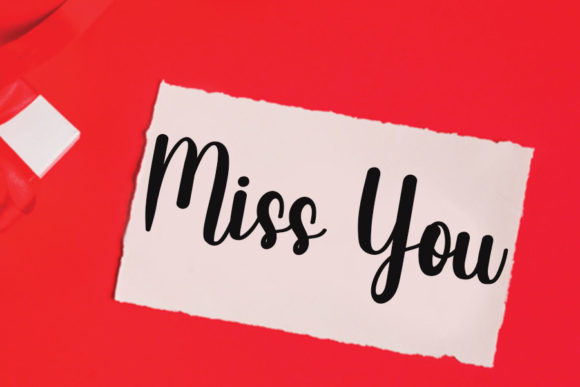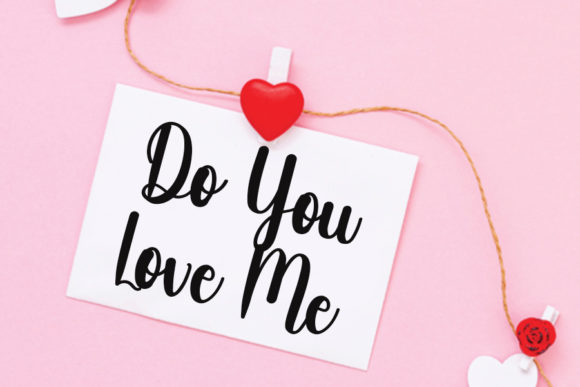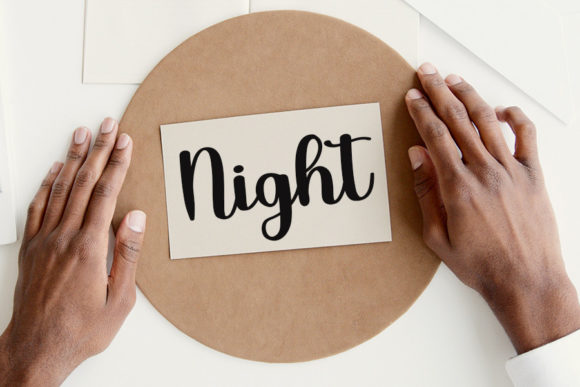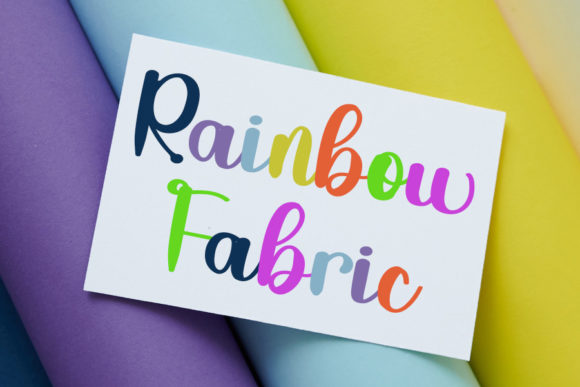
Discover the Beauty of Handwritten Fonts: A Designer’s Dream
Imagine strolling through a quaint, vintage bookstore, surrounded by the musty smell of old paper and the soft glow of lamplight. As you run your fingers over the pages of an antique journal, you stumble upon a beautifully crafted handwritten note, penned by a skilled calligrapher. This is the kind of elegance and charm that the Autography Font brings to your designs.
As a designer, you’re always on the lookout for unique and versatile fonts that can elevate your work and make it stand out in a crowded market. That’s where the Autography Font comes in – a beautifully crafted handwritten font that’s perfect for various business needs, from shirt designs and logos to banners and more.
Autography Font Key Features
- Font Family: Autography Font is a unique, hand-drawn font family that includes 6 different font styles, each with its own distinct character.
- Size: The font family includes a range of weights, from Thin (100) to Black (900), allowing for flexibility in design applications.
- Resolution: Designed to be highly scalable, Autography Font is suitable for use in a variety of resolutions, from low-resolution print to high-resolution digital displays.
- Unique Characteristics: Each font style in the Autography family features intricate details, subtle texture, and a hand-crafted feel that adds a touch of elegance to any design.
Autography Font Review
Overall, I found the Autography Font to be a decent addition to any design project. Here’s what I think works well:
- ✨ The script-like feel of the font gives a unique touch to any design, making it perfect for handwritten-style quotes, titles, or social media posts.
- ✨ The font is relatively easy to read, even at smaller sizes, which is a must for any font intended for digital use.
- ✨ The font comes in a range of weights, making it versatile for various design needs.
However, there are a few limitations I’d like to mention:
- ⚠️ The font may not be the best choice for body text, as it can be a bit overwhelming when used extensively.
- ⚠️ Some of the letterforms may not be as polished as I’d like, which could be a drawback for designers who value precision.
Overall, I’d give the Autography Font 3.5 out of 5 stars. It’s a great addition to any design project that needs a touch of whimsy, but it may not be the best choice for more serious or formal designs.
Autography Font is commonly used for creating digital signatures, logos, and branding materials. It’s also great for adding a personal touch to invitations, business cards, and other marketing materials.